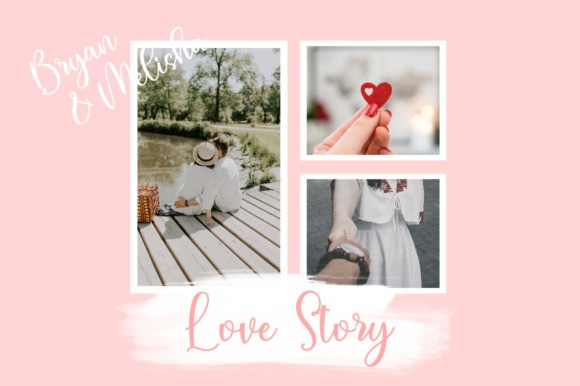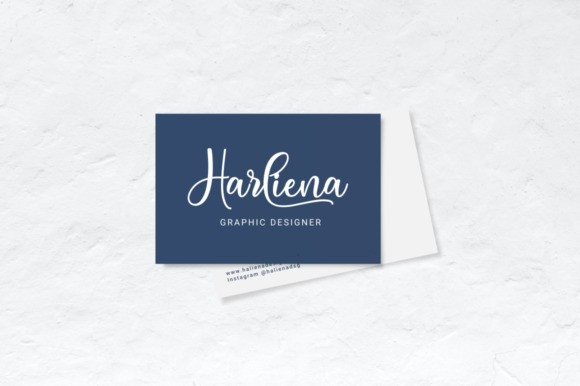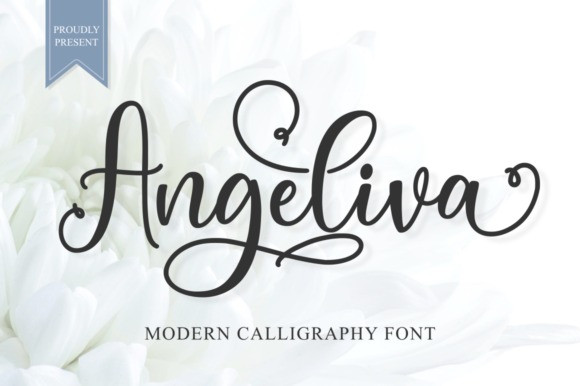
Angeliva Font
Angeliva Script Font is a sweet and cursive handwritten font. This gentle font will look gorgeous on a variety of design ideas. Angeliva is PUA encoded which means you can access all glyphs and swashes with ease!